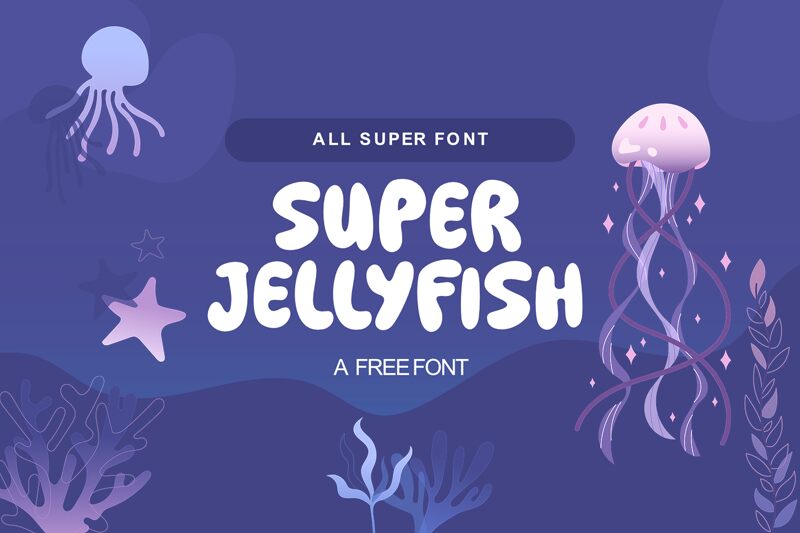
Super Jellyfish font by fsuarez913 is a free and playful display font with a cartoon style. The irregular, large letters are positioned at fun angles and are decorated in a white pattern that gives them a funky look. The informal appearance of each letter is made even friendlier by the rounded corners, making Super Jellyfish the perfect font for youthful designs.
The whimsical style of this font is appropriate for children’s book covers, posters, advertisements, and packaging. You can use it to create cool social media posts or greeting cards. It is also suitable for logo designs, branding, and visual identity designs.